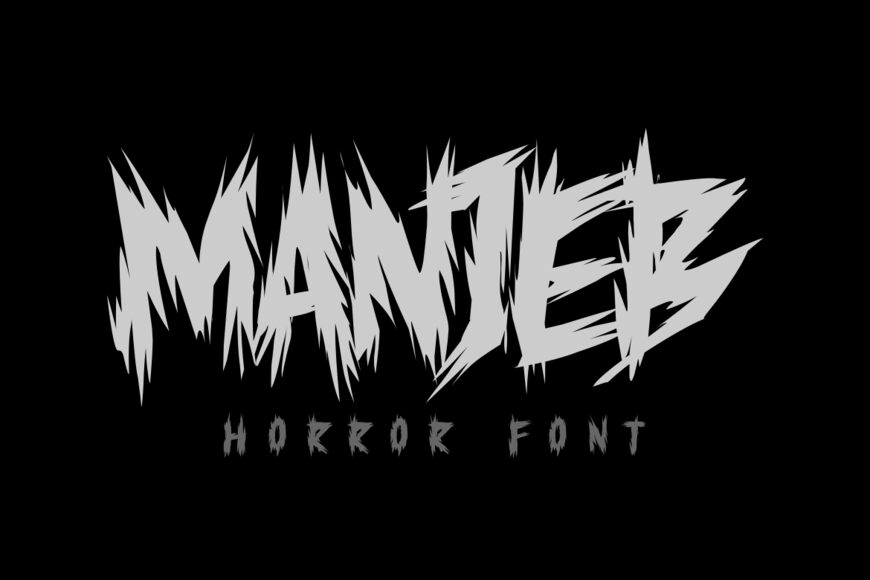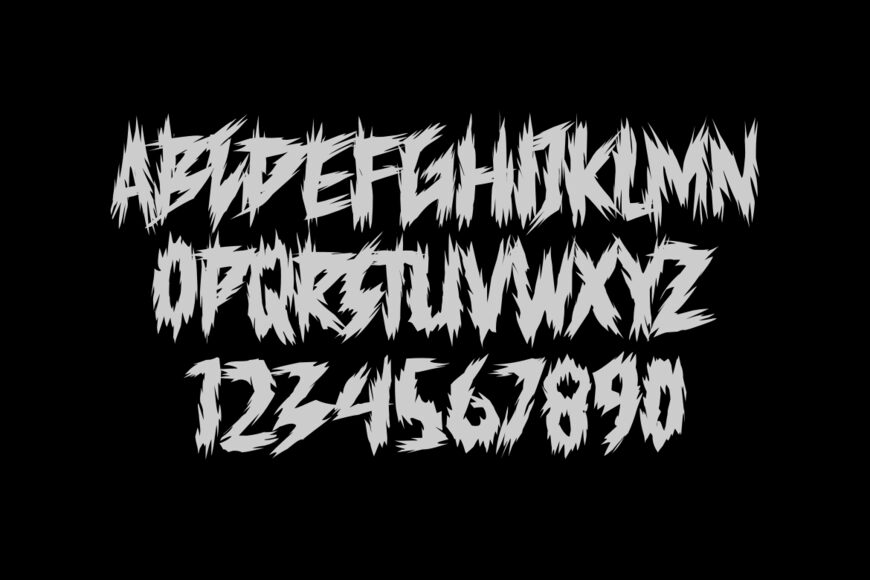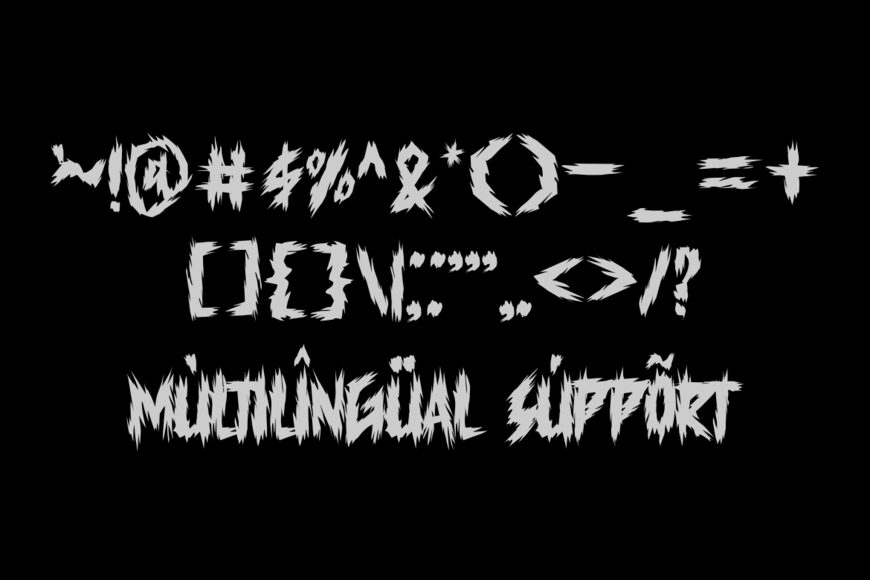
Manjeb is a striking, sharp horror display font featuring jagged, spike-like letterforms that convey a sense of danger and chaos. Its aggressive design makes it an ideal choice for Halloween themes, movie posters, album covers, heavy metal branding, and dark video game graphics.
The font includes uppercase letters, numbers, punctuation, and multilingual accents to add an intense, eerie atmosphere to any creative project.